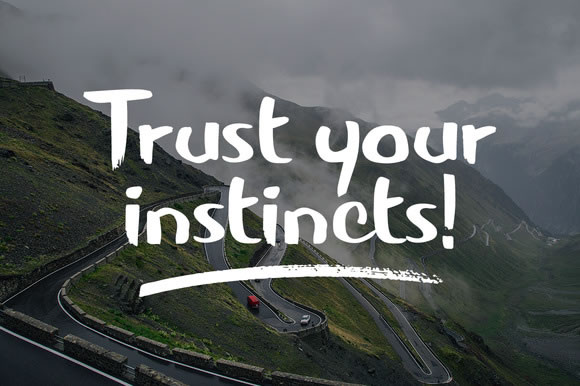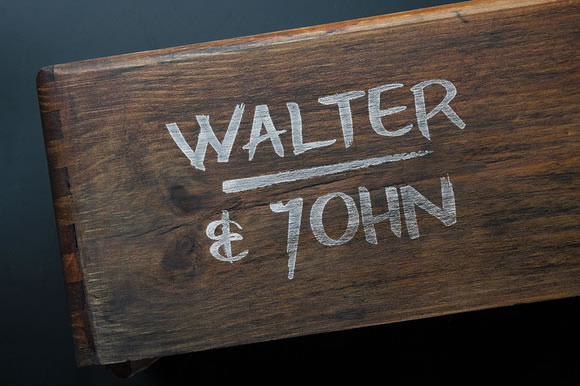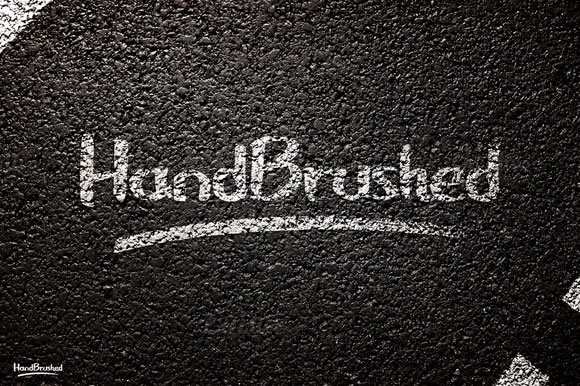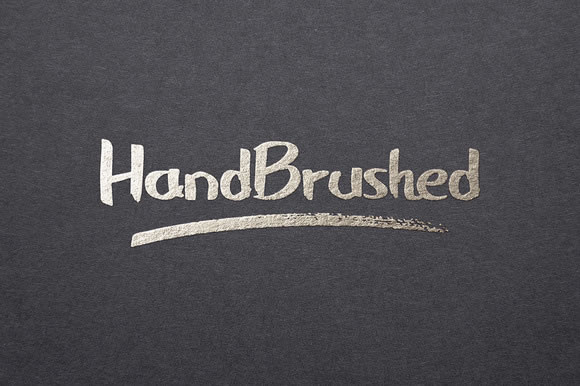
Introducing Handbrushed Font: A Unique Brush-Based Sans Serif Font
Are you tired of using the same old fonts in your designs? Look no further! Handbrushed Font is a refreshing addition to any design project. This beautifully crafted font is a set of 2 font files: Handbrushed Regular and Handbrushed Swashes Regular. The regular version is perfect for everyday text, while the swashes font file offers additional flair with elegant swashes.
What Makes Handbrushed Font Special?
Handbrushed Font is a brush-based sans serif font that has been carefully designed by hand using a brush. Yes, you read that right! The creator of this font spent countless hours perfecting each character, using a black thick brush and a lot of coffee – we’re talking 60-70 A4 sheets and loads of coffee! The result is a truly unique and organic font that adds a personal touch to any design.
Features of Handbrushed Font
This versatile font features:
- Uppercase characters
- Lowercase characters
- Numbers
- Glyphs
With both regular and swashes versions, you can mix and match to create stunning text combinations without needing additional tools. The swashes font file offers a range of elegant swashes to add a touch of sophistication to your designs.
Handbrushed Font is a dream come true for designers and crafters looking for a unique font to add some personality to their work. Whether you’re designing:
- Logos
- Branding materials
- Invitations
- Stationery
Handbrushed Font is the perfect choice. Its organic, hand-brushed feel adds a touch of warmth and humanity to any design, making it perfect for projects that require a personal touch.
Tips for Using Handbrushed Font
To get the most out of Handbrushed Font, try the following:
- Use the regular version for body text and the swashes version to add emphasis or create stunning headings.
- Experiment with different font sizes and colors to add depth and visual interest to your designs.
- Combine Handbrushed Font with other fonts to create a unique typography style.
Handbrushed Font is a one-of-a-kind brush-based sans serif font that’s perfect for designers and crafters looking to add some personality to their work. With its unique, hand-brushed feel and versatile features, this font is sure to become a favorite in your design arsenal. So why wait? Download Handbrushed Font today and start creating stunning designs that stand out from the crowd!